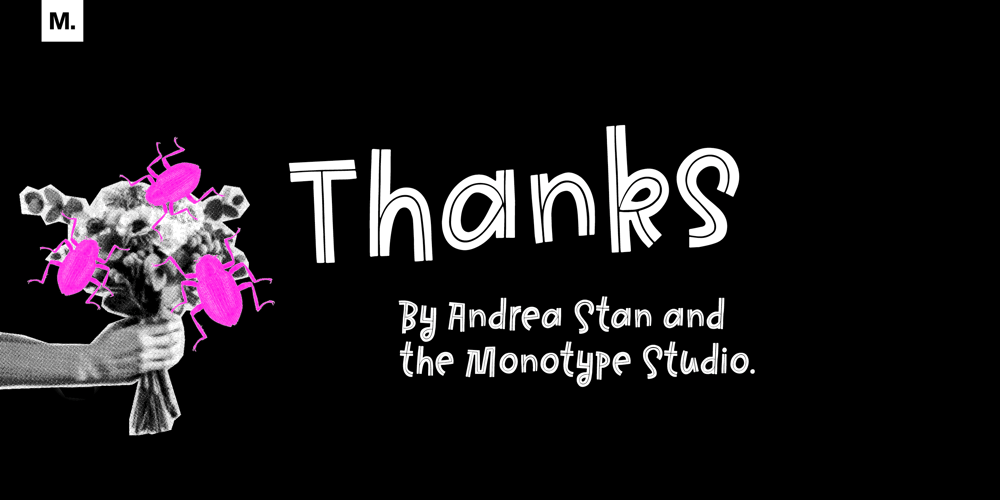
Thanks Font Family was designed by Andrea Stan and published by Monotype. Thanks contains 1 styles and family package options. Designed by Romanian lettering artist Andrea Stan, Thanks is a contemporary script packed full of quirky shapes, bouncy baselines and uneven letter heights. This makes Thanks a truly fun and friendly design (Oh and also very polite!). This off-beat font is Bold, monolinear and has a subtle inline twist.